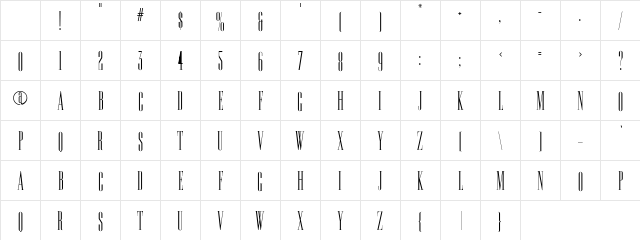
Kuzma Regular
Design Context for Kuzma
Kuzma is a composed and adaptable typeface that performs quietly and consistently across a wide range of design contexts.